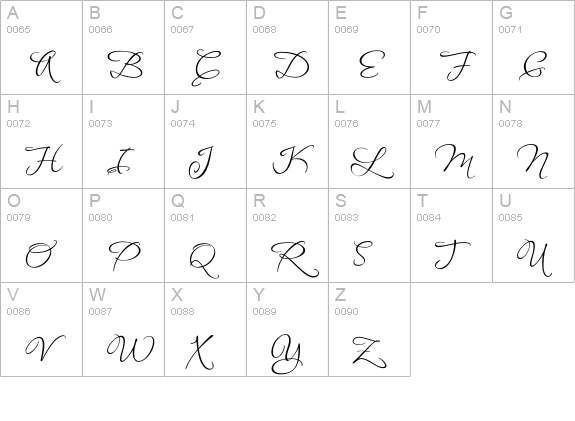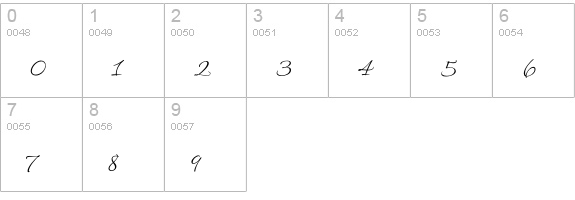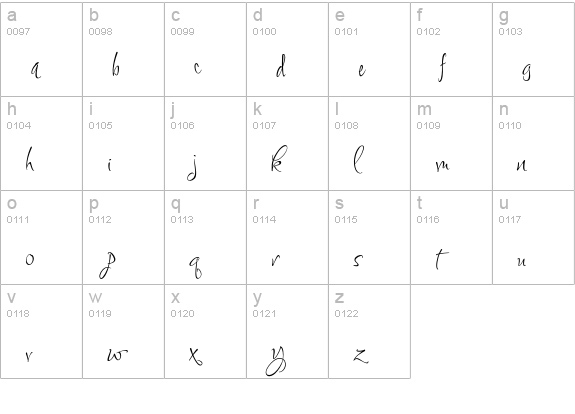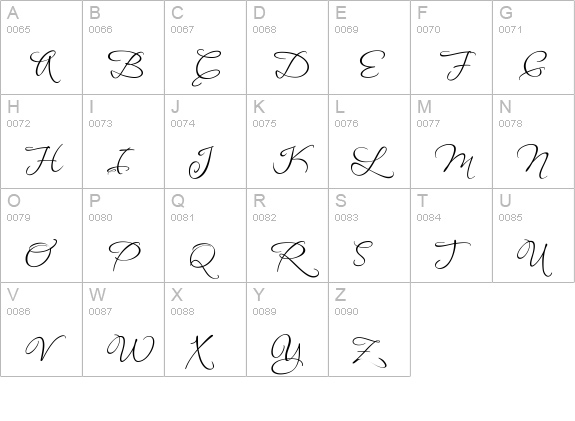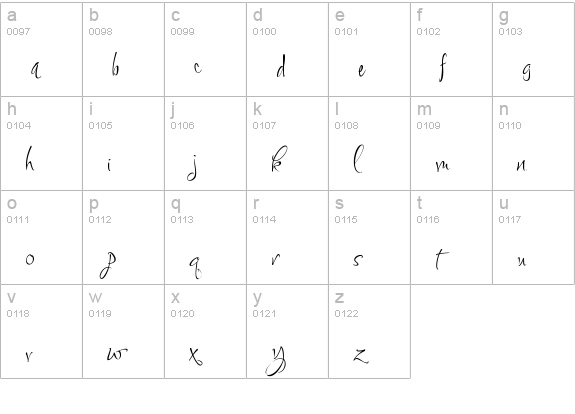
FugglesEight Font Details
FugglesEight font is a unique and stylish typeface that exudes elegance and sophistication. With its sleek lines and modern design, this font is perfect for adding a touch of class to any project. Whether you're working on a logo, branding materials, or a website, FugglesEight will make your text stand out and leave a lasting impression. What's even better is that FugglesEight is completely free to download! You can easily access this stunning font at FontsMarket.com and start using it in your projects right away. Don't miss out on the opportunity to enhance your designs with this beautiful and versatile typeface. Download FugglesEight today and take your creations to the next level!